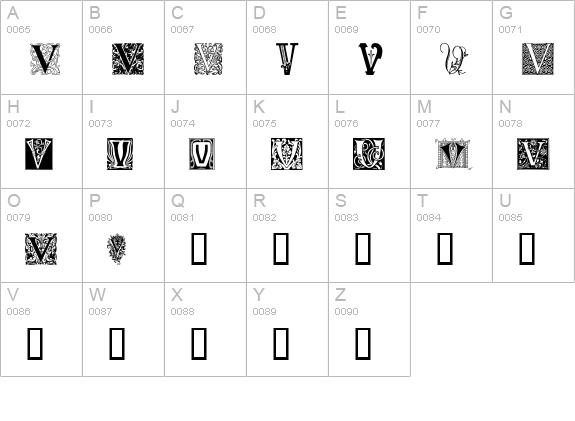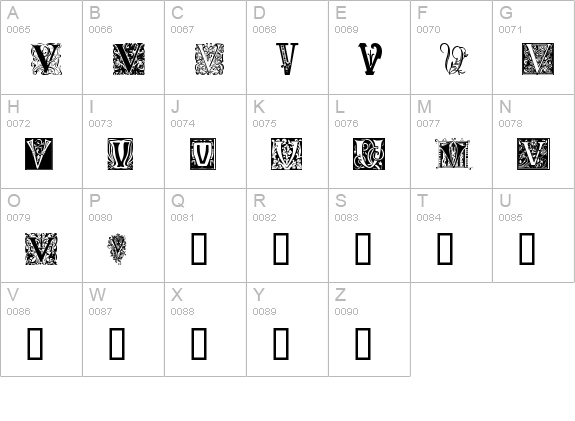
Ornamental Initials V Font Details
Ornamental Initials V font is a stunning and intricate typeface that exudes elegance and sophistication. With its ornate and decorative initials, this font is perfect for adding a touch of luxury to your designs. Each letter is meticulously crafted with fine details and flourishes, making it a truly unique and eye-catching choice for your projects. The Ornamental Initials V font is not only visually appealing but also versatile, suitable for a wide range of design applications including invitations, branding, packaging, and more. Its timeless and classic design makes it a great choice for projects that require a touch of vintage charm. Best of all, Ornamental Initials V font is available for free download at FontsMarket.com. So whether you're a professional designer looking to add a special touch to your work or a DIY enthusiast working on a personal project, this font is the perfect choice for adding a touch of elegance and sophistication. Download it today and elevate your designs with the beauty of Ornamental Initials V font.